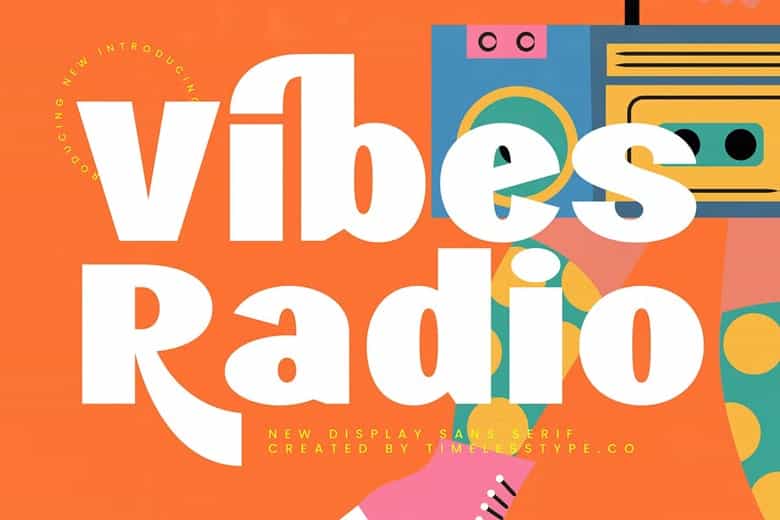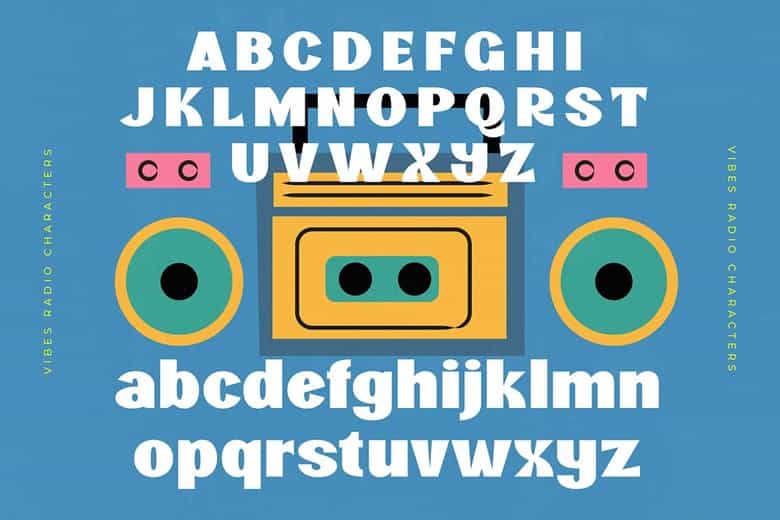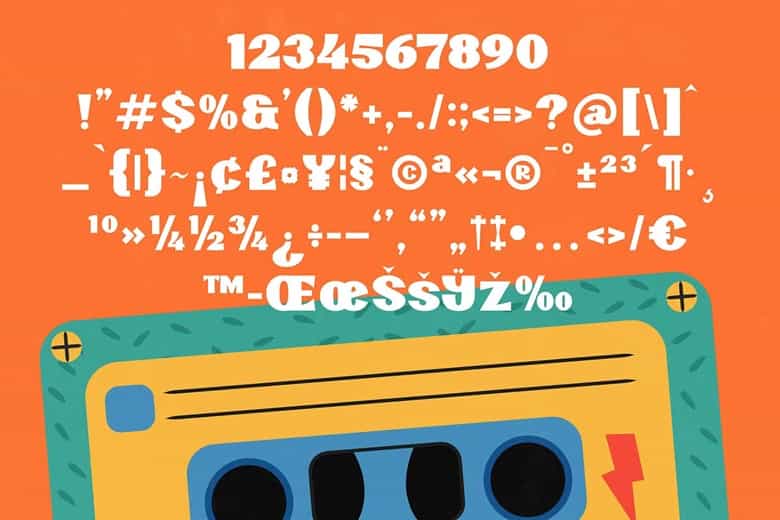
Discover Vibes Radio Font, part of the Sans Serif Display collection—a versatile and unique font perfect for adding a personal touch to your projects. Download it for free and enjoy crafting designs with style, from invitations to social media posts. This font is available exclusively for personal use, giving you the freedom to create without limits. Unlock your creativity with Vibes Radio Font today!
Vibes Radio is a bold sans display font, It’s suitable for any projects such as: The pack is perfect for logos, branding projects, home wares designs, product packaging, posters, shopping bags, t-shirts, book covers, name card, invitation cards, greeting cards, label, special events, and all your other luxury and beautiful projects that require the touch of Luxury Serif.